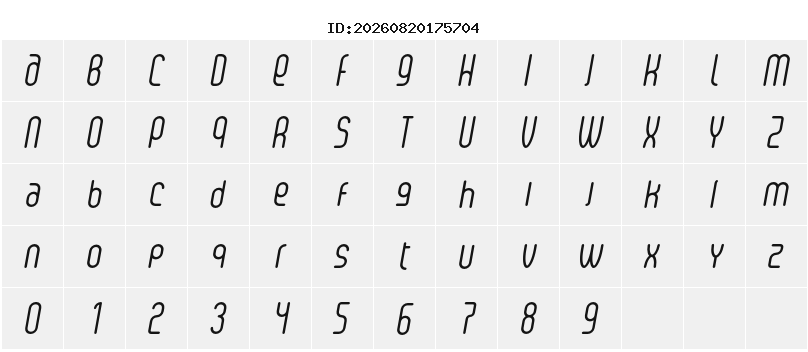
• Font Name: Senzi
• Designer: Alberto Villanueva
Senzi.otf is a modern, elegant sans-serif font designed for ultimate readability and visual harmony. Perfect for branding, headlines, web design, and print materials.